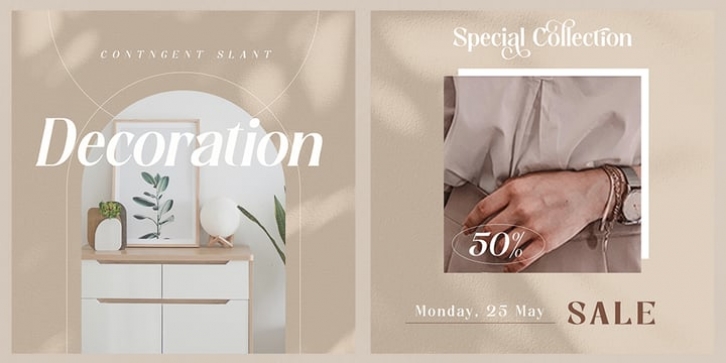
Contingent Font Duo Font Family was designed by Teuku Fahruddin, and and published by Typehill Studio. Contingent Font Duo contains 6 styles and family package options.
Introducing Contingent Duo: An elegant serif typeface paired with a casual handwritten script. With its modern and minimal look, Harlow Font Duo brings a luxurious and clean style to websites, modern logos, branding identity, social media quotes, wedding stationery, and whatever your heart dreams up!
The Serif includes two weights - regular and bold - and built in OpenType kerning features for a professional touch.
Stylish modern font duo consisting of elegant and elegant script and serif fonts.